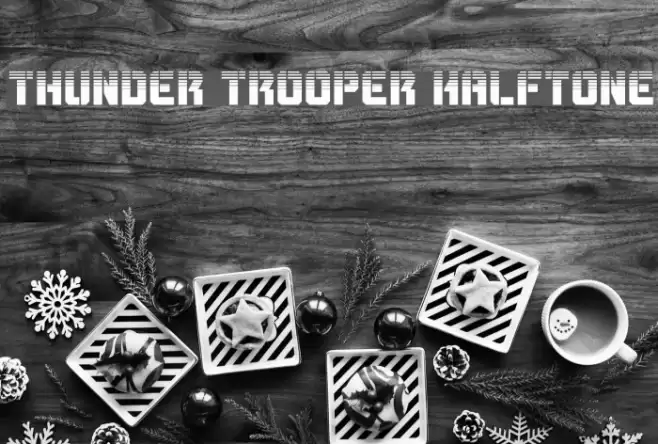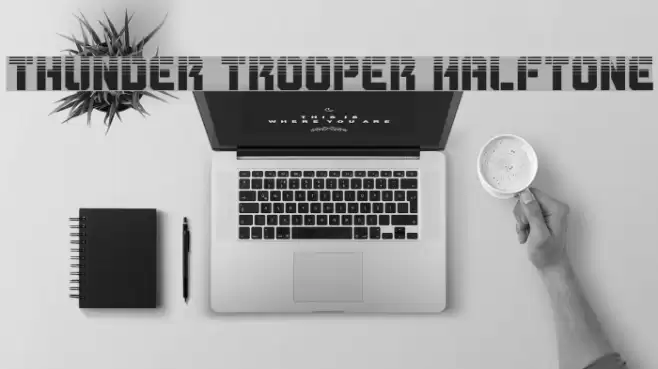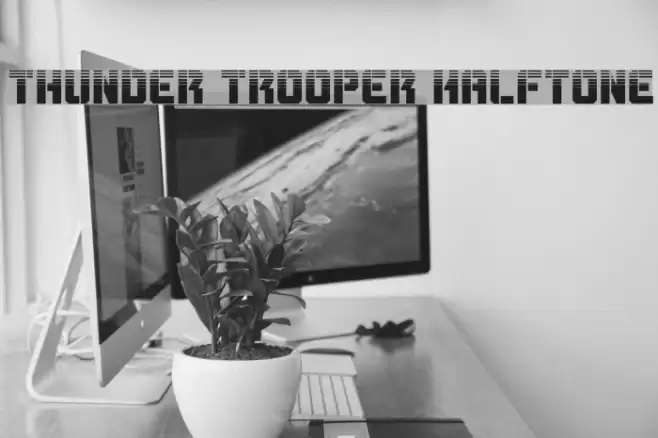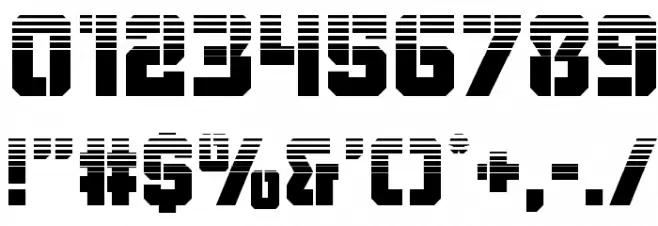
Thunder Trooper Halftone Font
Thunder Trooper Halftone Description
This font features a bold, futuristic design with a halftone effect that gives it a unique, digital appearance. The characters are constructed with solid, block-like forms, interrupted by horizontal lines that create a sense of movement and energy. This style is reminiscent of digital displays or sci-fi themes, making it highly suitable for modern, tech-oriented projects. The uppercase and lowercase letters maintain a consistent style, with numbers and special characters following the same design principles. The font's strong presence and distinctive look make it ideal for attention-grabbing headlines or branding.
A bold, futuristic font with a halftone effect and digital aesthetic from Uncategorized fonts.
- Proposed Projects: Ideal for sci-fi themed posters, tech branding, video game titles, and futuristic event promotions.
- Overall Style: Futuristic, Digital